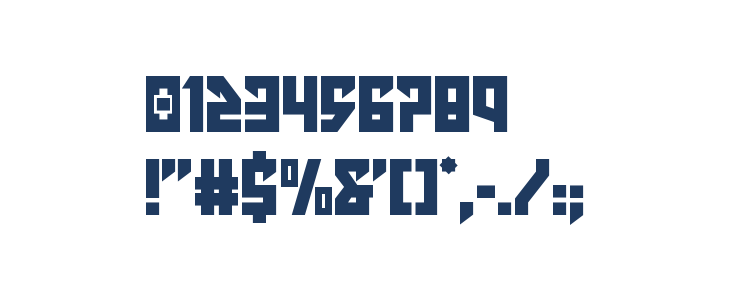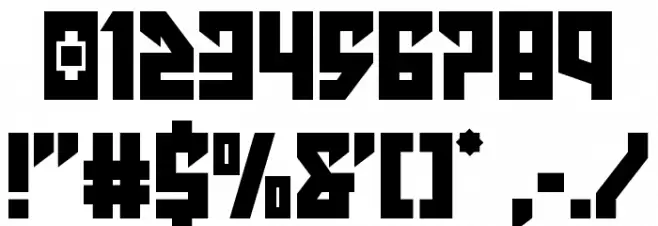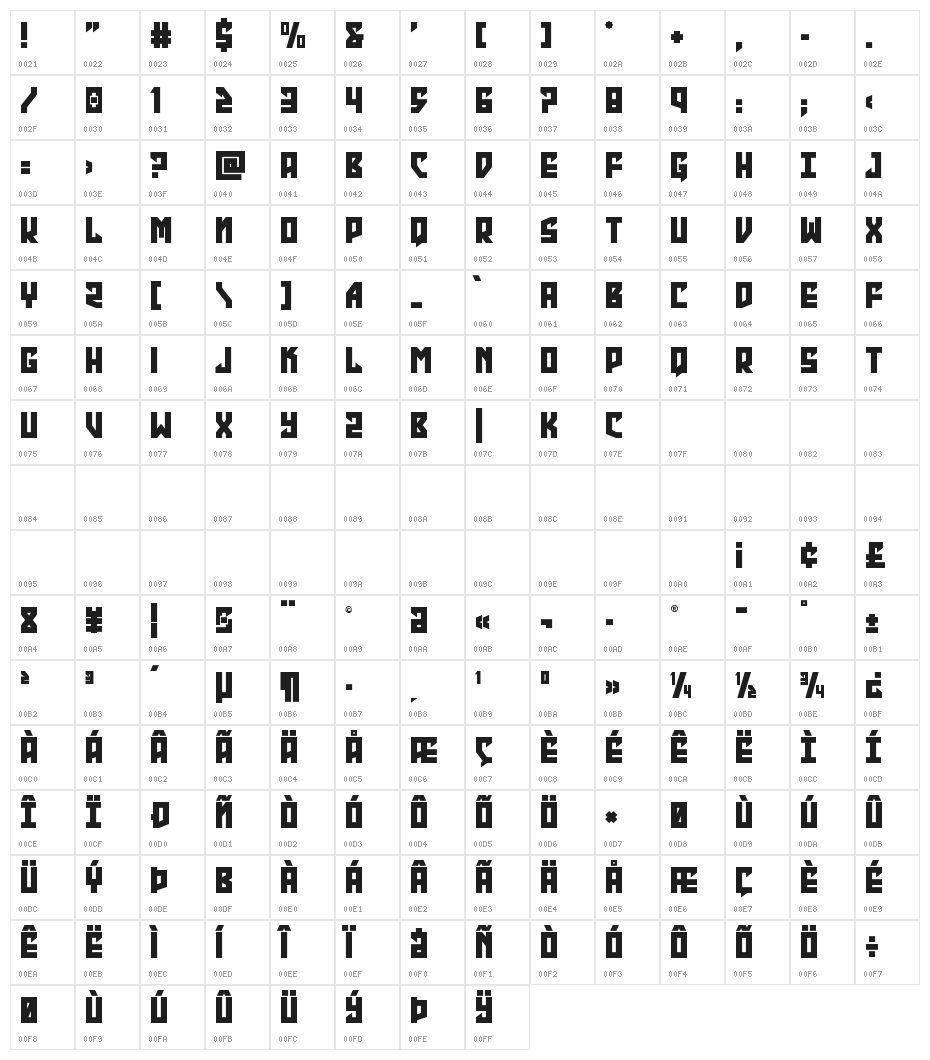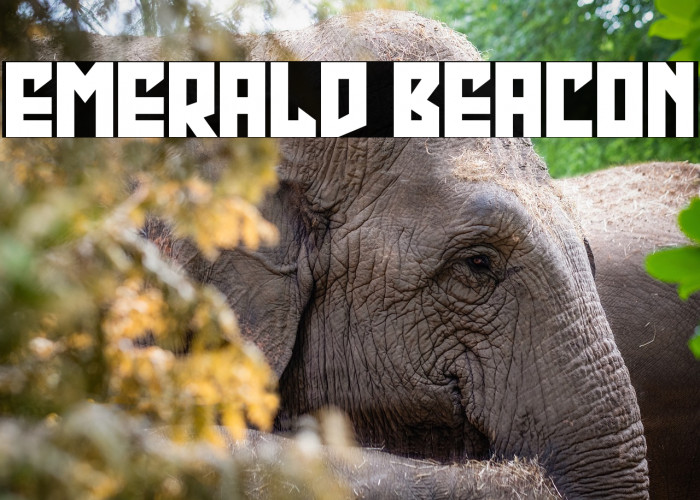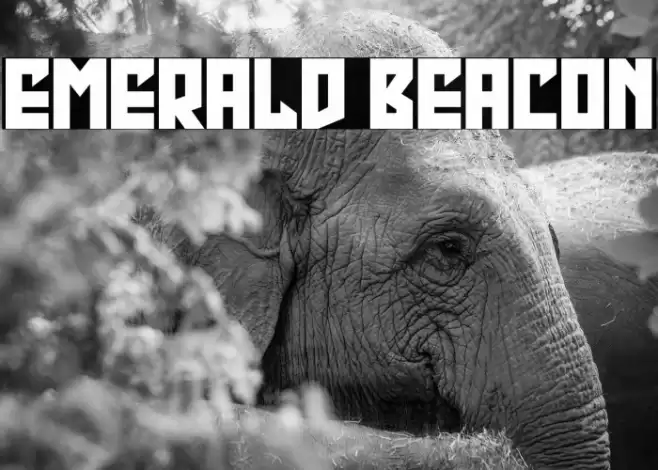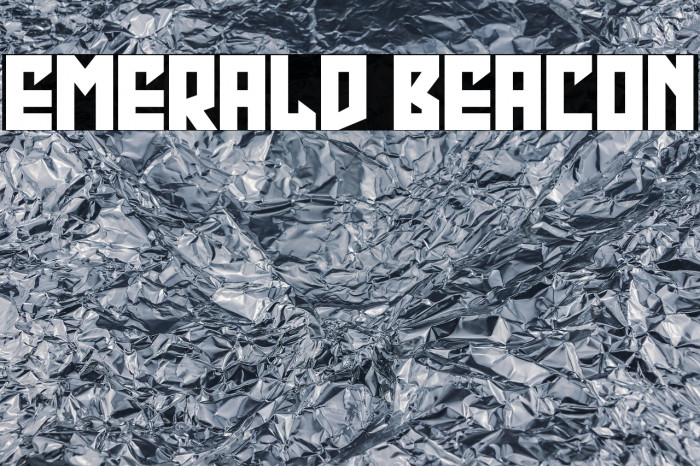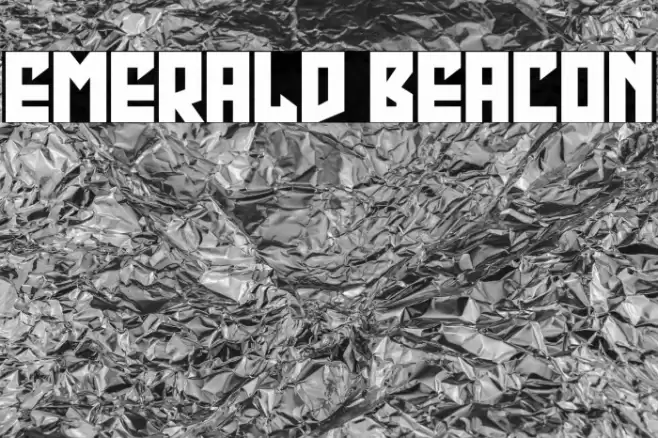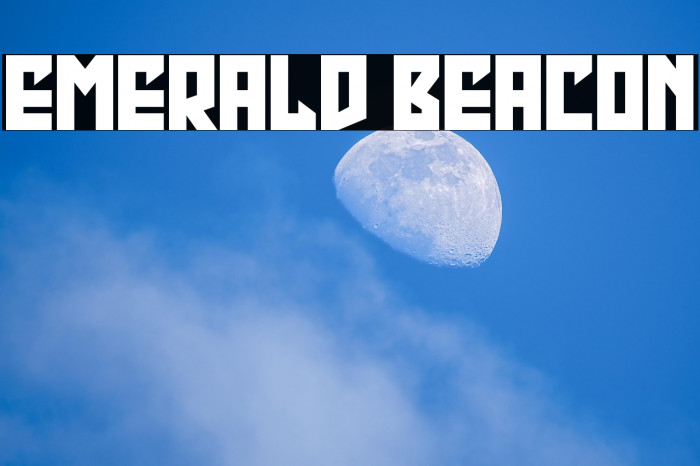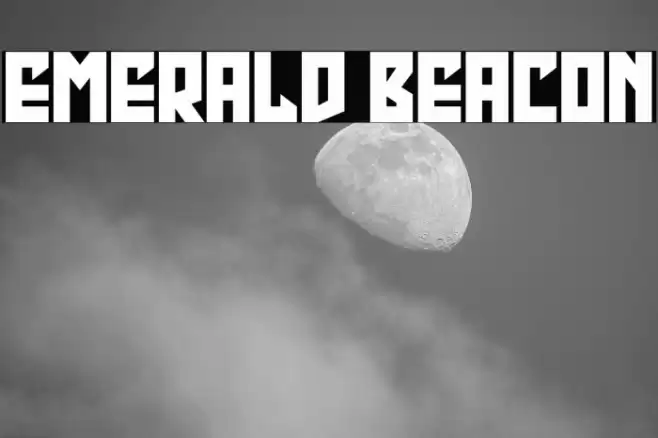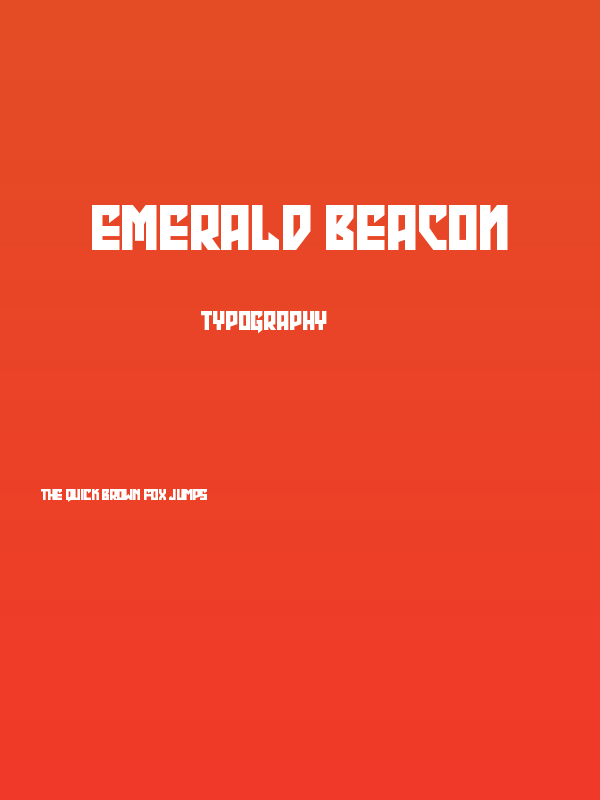
Emerald Beacon Font
Emerald Beacon Description
This font features a bold, geometric style with sharp angles and a blocky appearance. The characters are designed with a futuristic and edgy aesthetic, making them stand out with their unique, angular cuts and strong presence. The uppercase and lowercase letters maintain a consistent design, emphasizing the boldness and modernity of the typeface. Numbers and special characters follow the same stylistic approach, ensuring uniformity across all elements. This font is ideal for projects that require a striking and contemporary look.
| Proposed Projects | Ideal for video game titles, sci-fi movie posters, tech branding, and modern graphic design projects. |